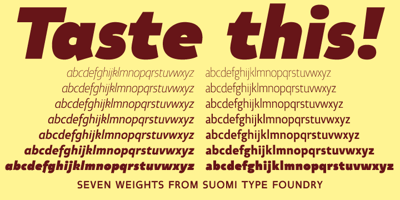
Taste
Taste font
Taste Font Family was designed by Tomi Haaparanta and published by Suomi. Taste contains 14 styles and family package options. Taste, with seven weights, is versatile enough for use in headlines and text.